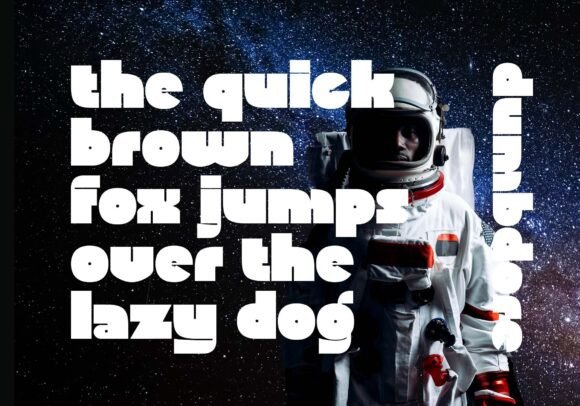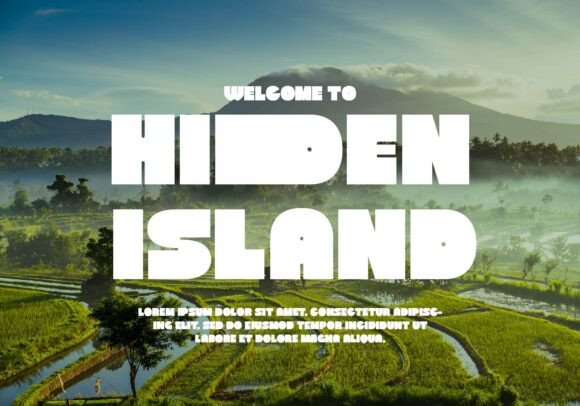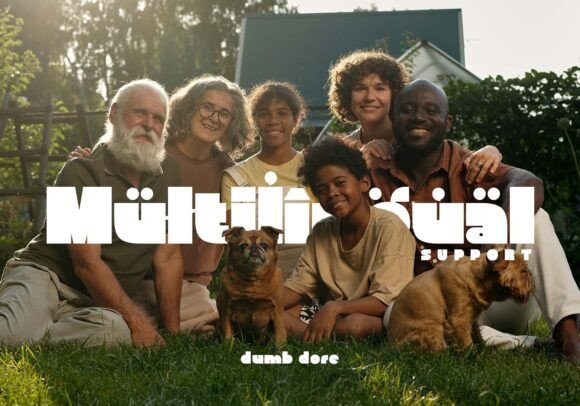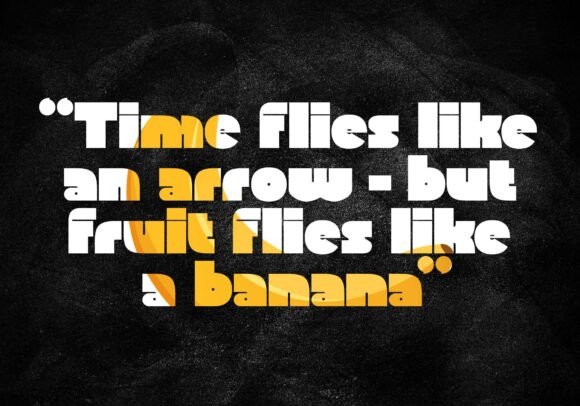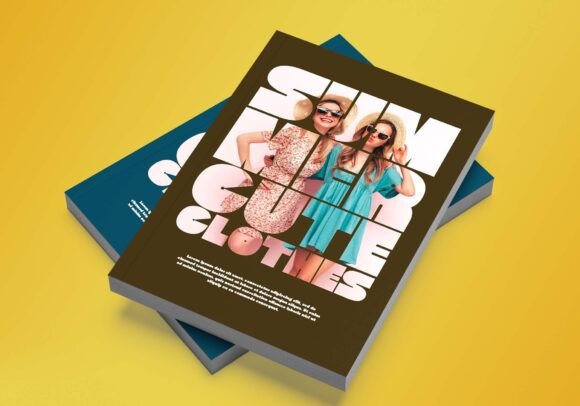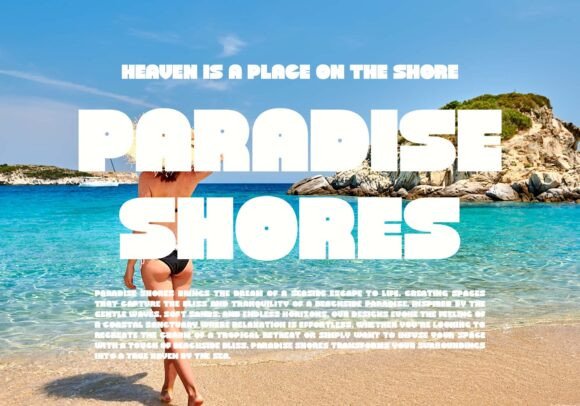
Introduction to Dumbdore Font
Have you ever been working on a creative project, pouring your heart and soul into every detail, only to realize that your design is missing that one special element to make it truly stand out? This is where the right font can make all the difference. For designers seeking a bold and dynamic presence in their work, the Dumbdore Font is an ideal choice.
With its unique bubble style and rich OpenType capabilities, this meticulously crafted Display Typeface brings a modern and captivating touch to all your design projects. Whether it’s posters, movie titles, book covers, or branding materials, the Dumbdore Font adapts effortlessly to various design needs, making it a valuable design resource for creatives worldwide.
Key Features of Dumbdore Font
- Unique, elegant design perfect for creative projects and design resources.
- High-quality font with a clear, legible design suitable for various design applications.
- Perfect for designers seeking a sophisticated, high-end design resource for their creative projects.
Honest Review: Dumbdore Font
I recently stumbled upon the Dumbdore Font while searching for a unique design resource for a creative project. At first glance, I was drawn to its elegant and sophisticated appearance, which makes it perfect for various applications.
Here are some things that work well with the Dumbdore Font:
- ✨ High quality: The font’s crisp and clean design ensures that it will look great in any context, from print to digital media.
- ⚠️ Limited font styles: The Dumbdore Font only comes in a few font styles, which may limit its versatility.
- ⚠️ Limited language support: The font may not support all languages, which could be a problem for designers working on projects that require multilingual support.
Overall, I’m impressed with the Dumbdore Font’s quality and versatility. While it may have some limitations, it’s a great addition to any designer’s toolkit, especially for creative projects that require a touch of elegance and sophistication.